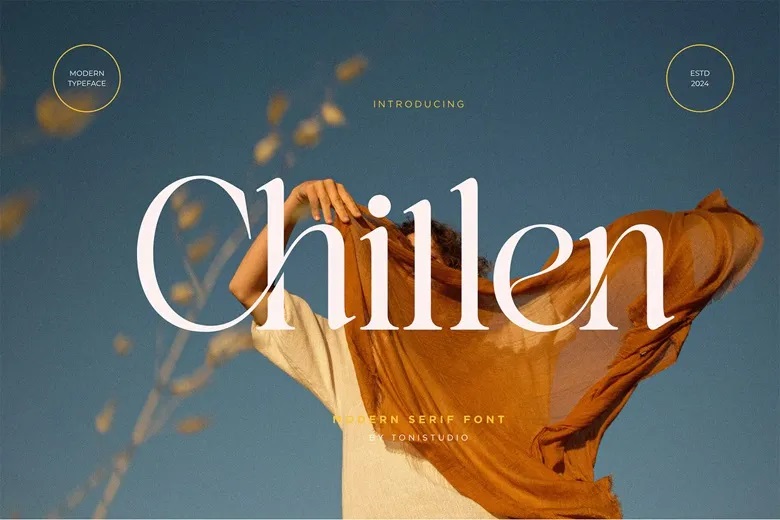
Chillen Font
Chillen is a new serif typeface that has optimal curves added to all the major glyphs. That is why this font unites traditional and postmodern design concepts and looks opulent, but still, it is easy to read. Great for branding, logos, invitations, and marketing designs among others, Chillen gives that classy look that enhances professionalism of all your projects.
Chillen Serif Font